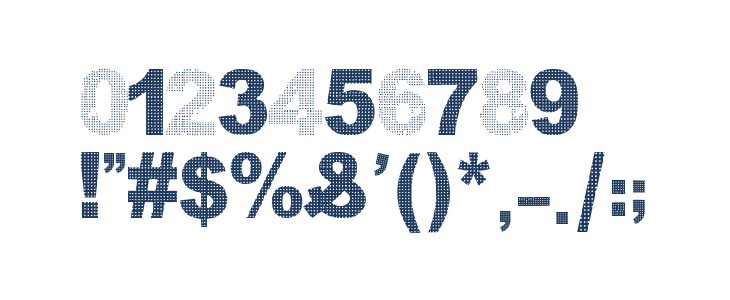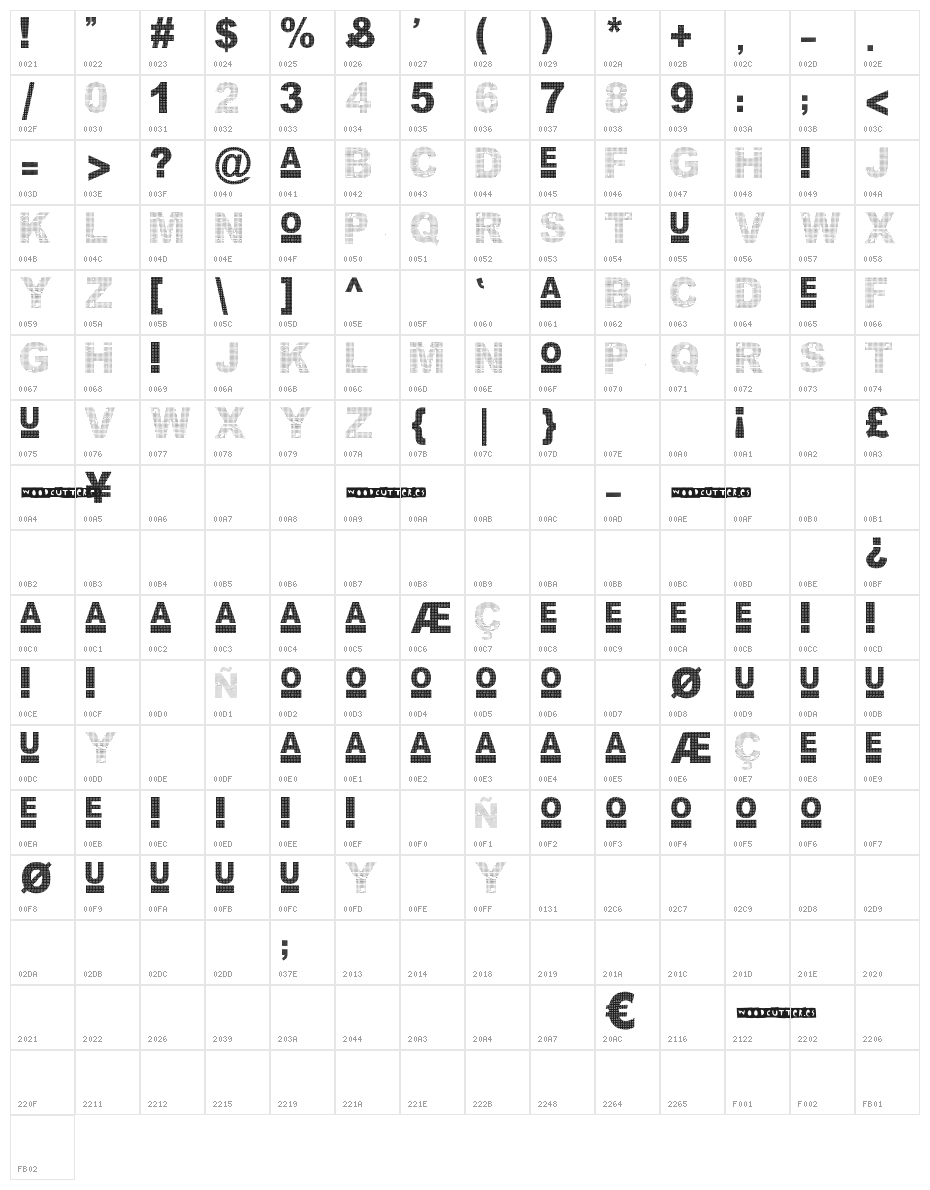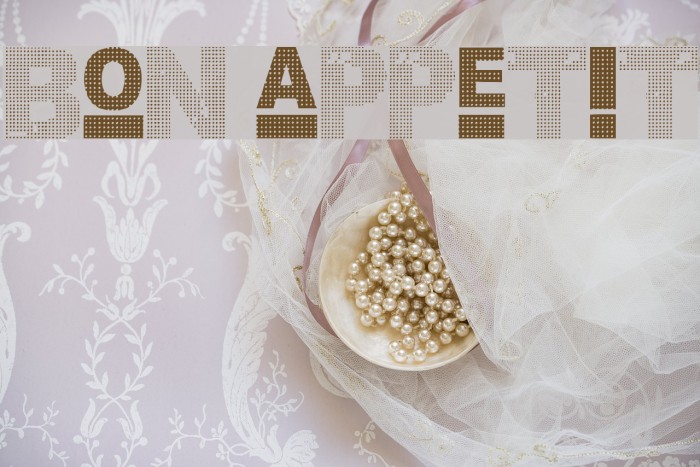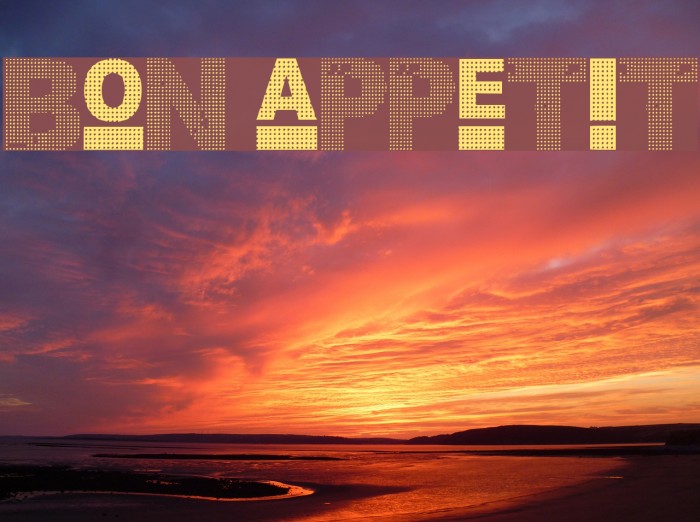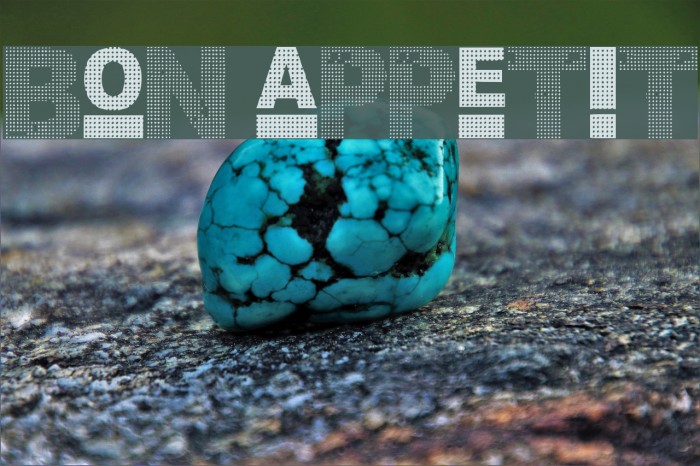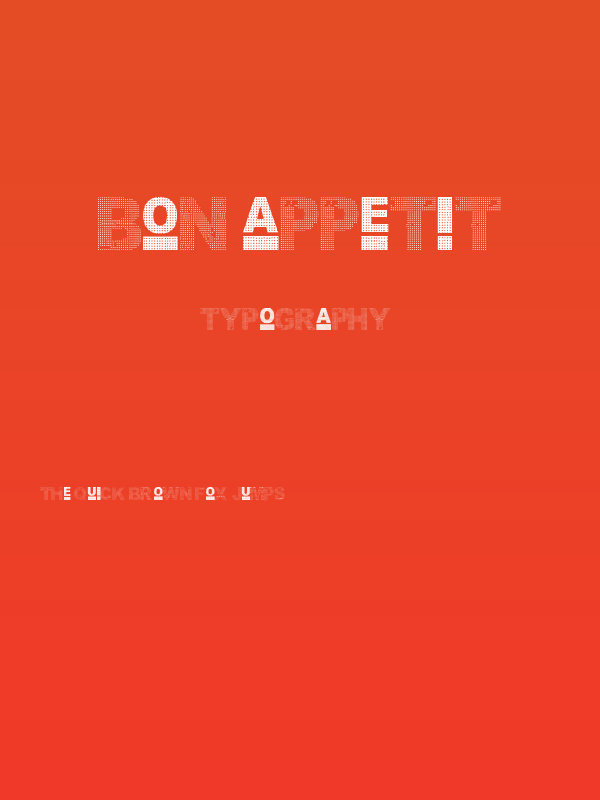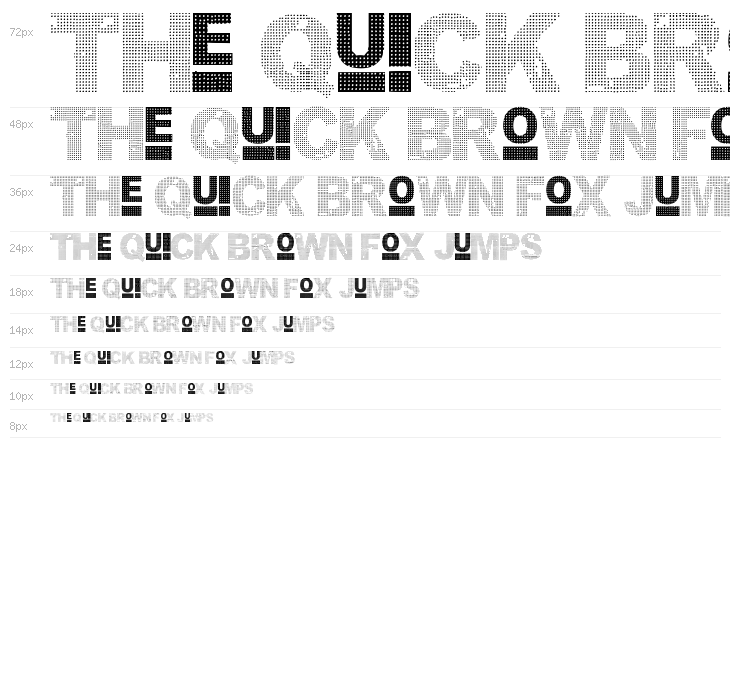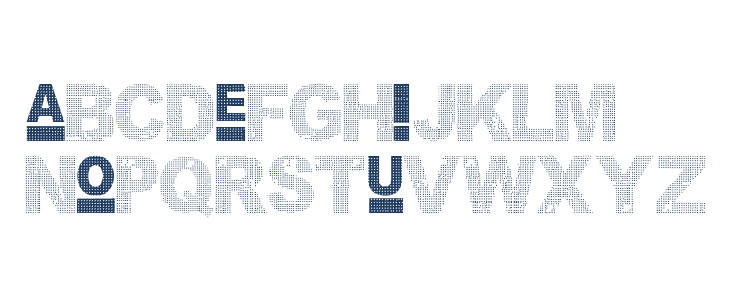
Bon Appetit Font
Bon Appetit Description
This font features a unique dotted pattern that creates a textured, eye-catching appearance. Each character is composed of small, evenly spaced dots, giving it a modern and playful vibe. The uppercase and lowercase letters maintain a consistent style, with bold strokes that enhance readability. The numbers and special characters follow the same dotted design, ensuring uniformity across all elements. This font stands out due to its distinctive look, making it ideal for creative projects that require a touch of whimsy and innovation.
| Proposed Projects | Ideal for posters, branding, event invitations, and digital media where a unique and engaging typeface is desired. |